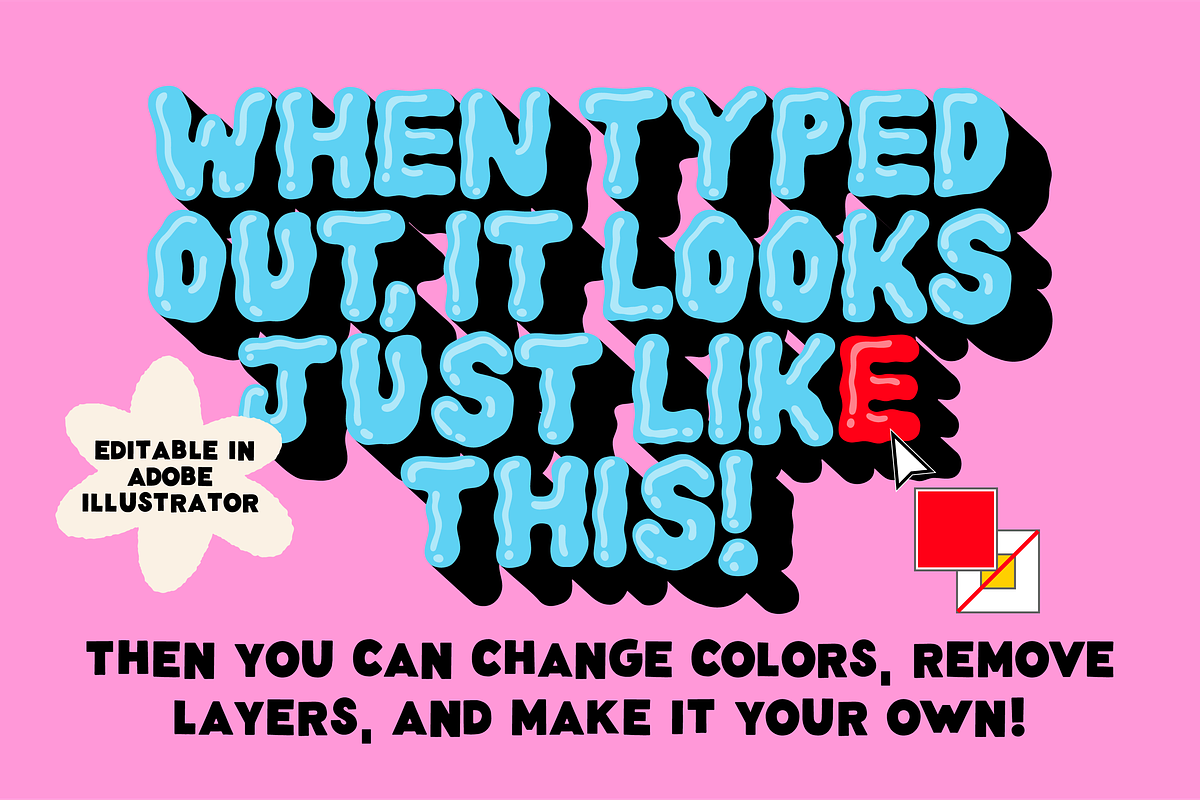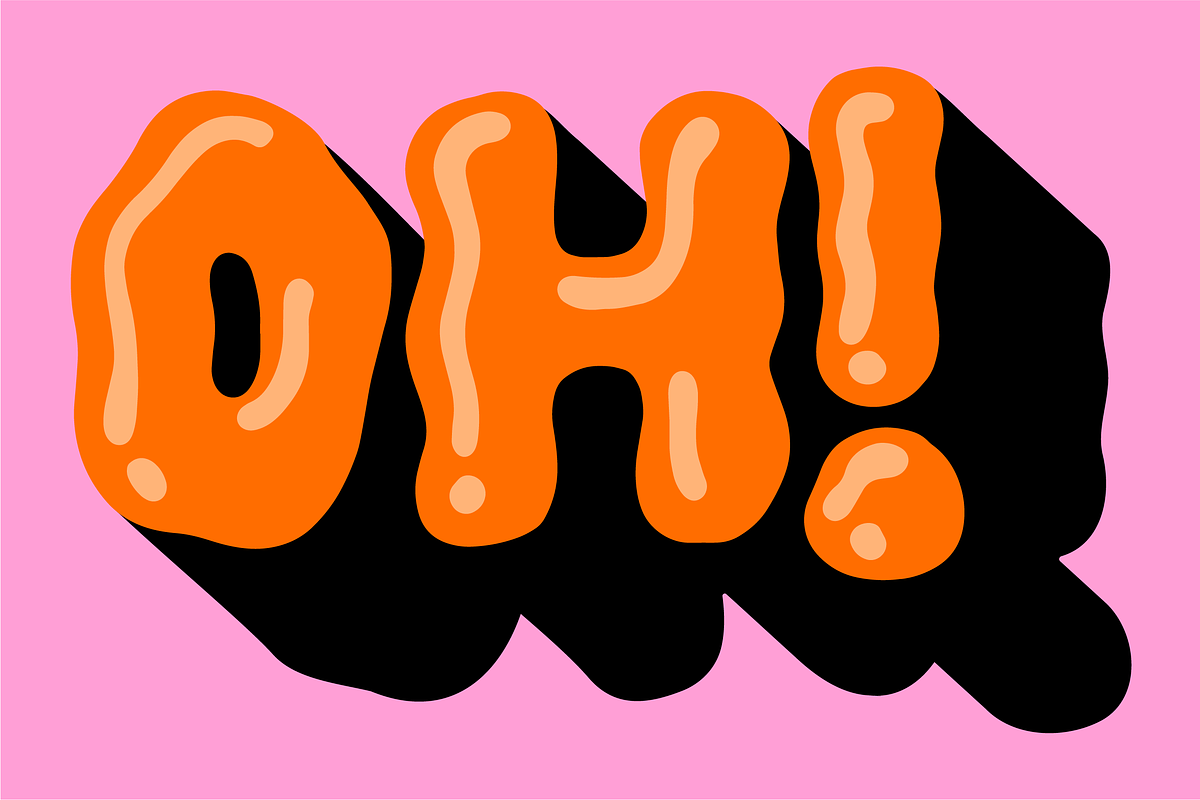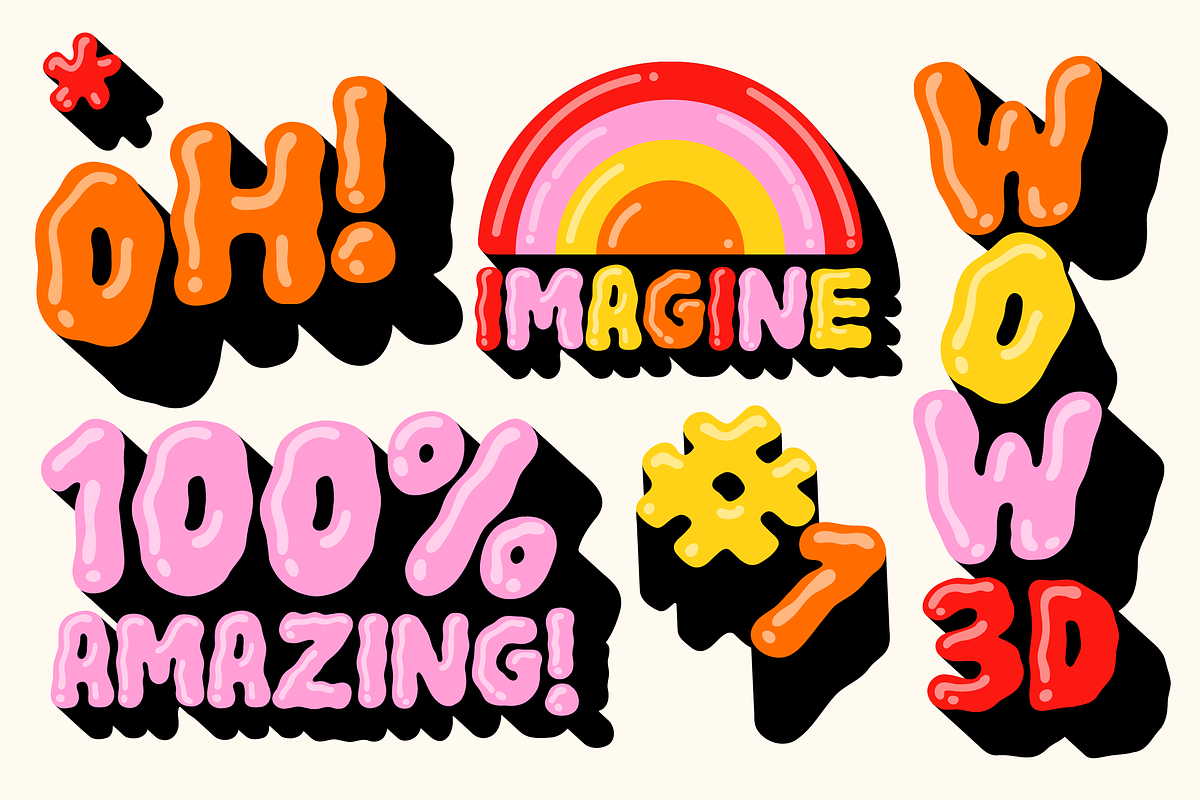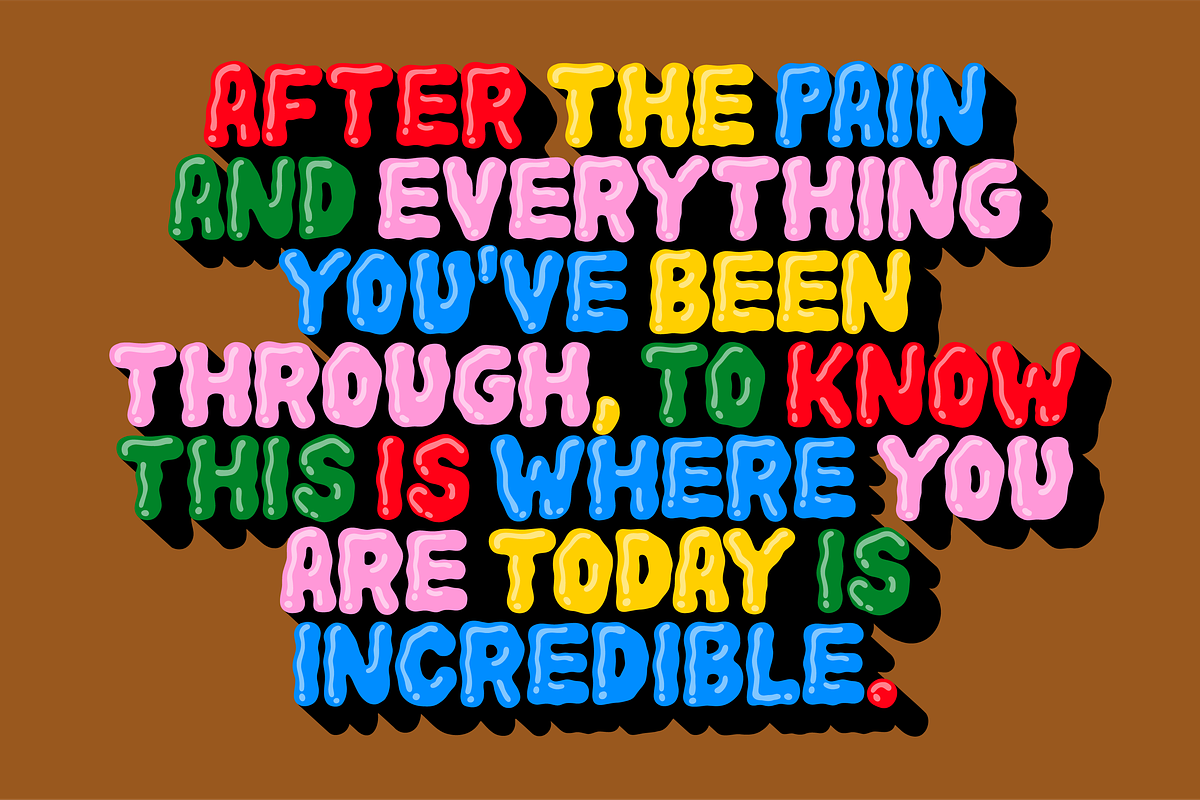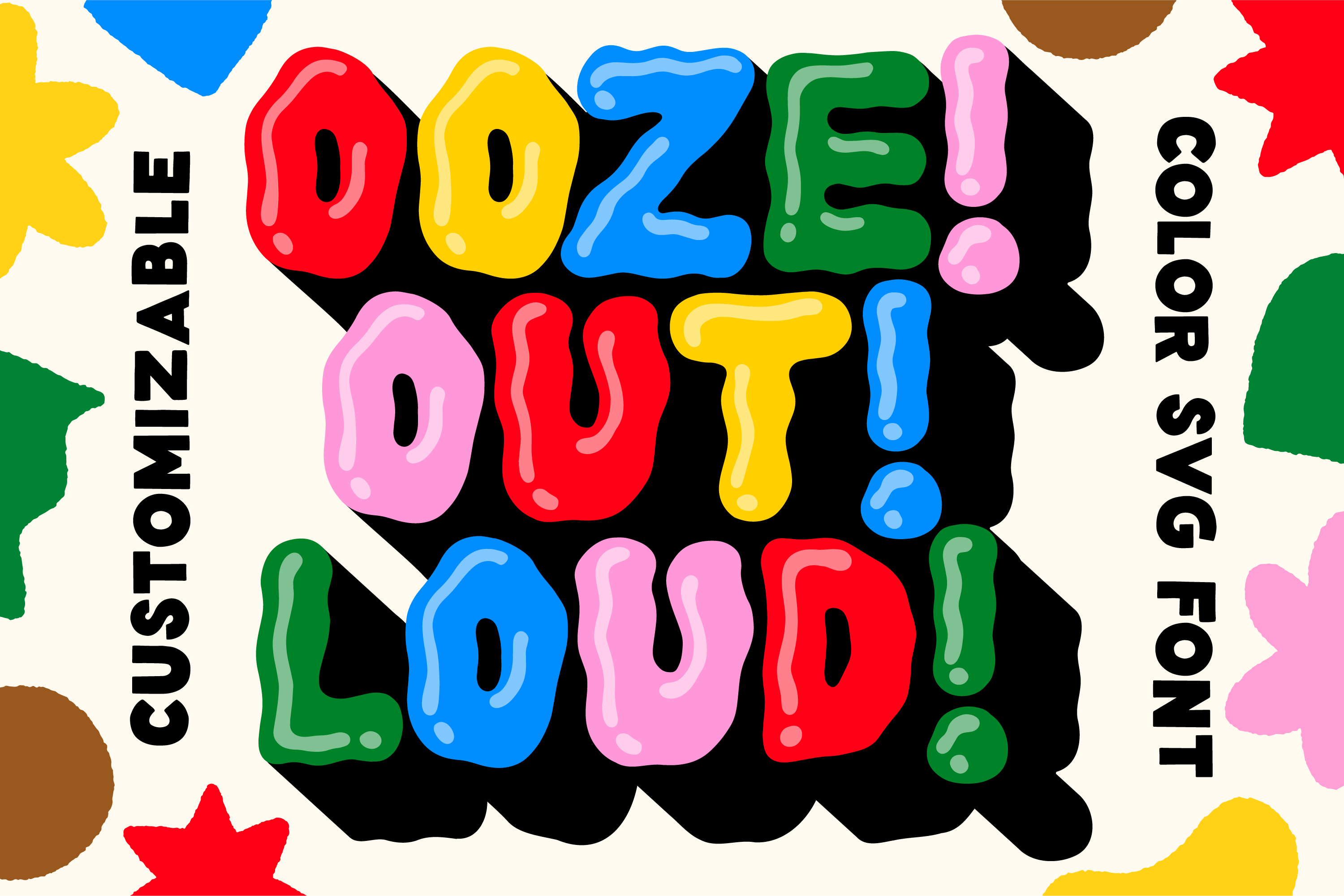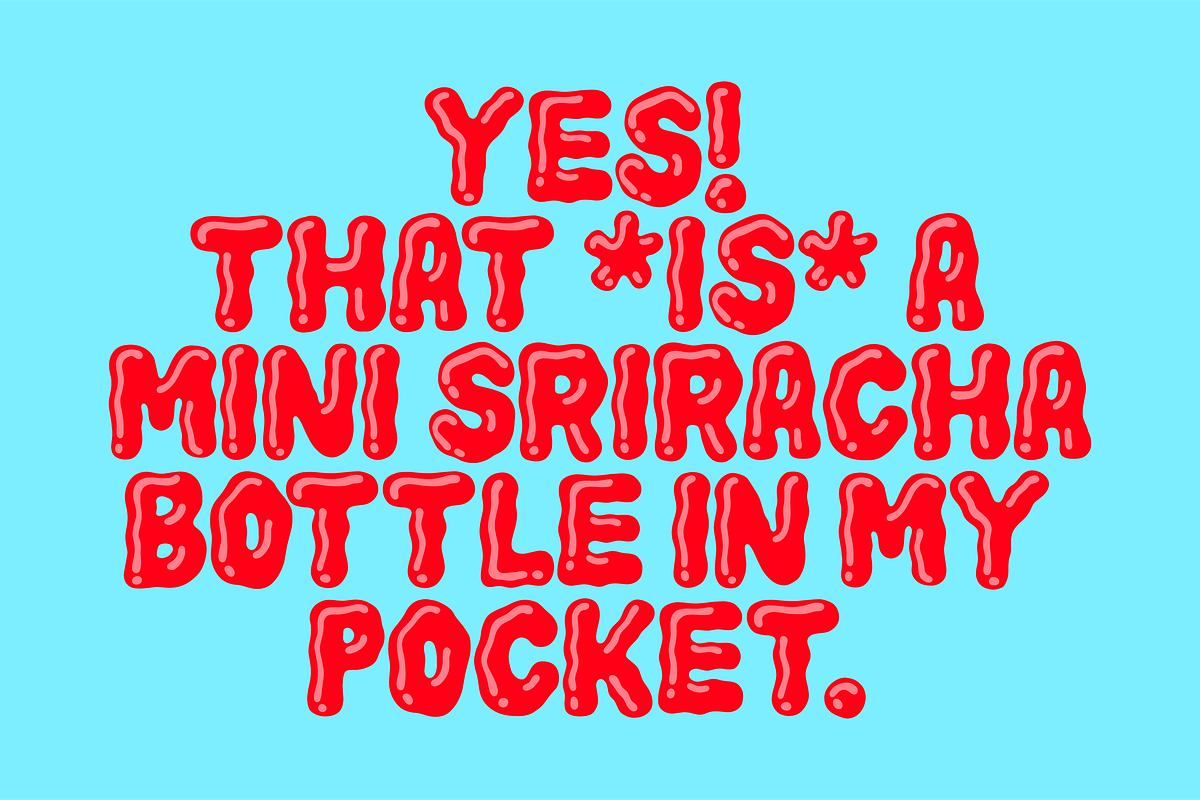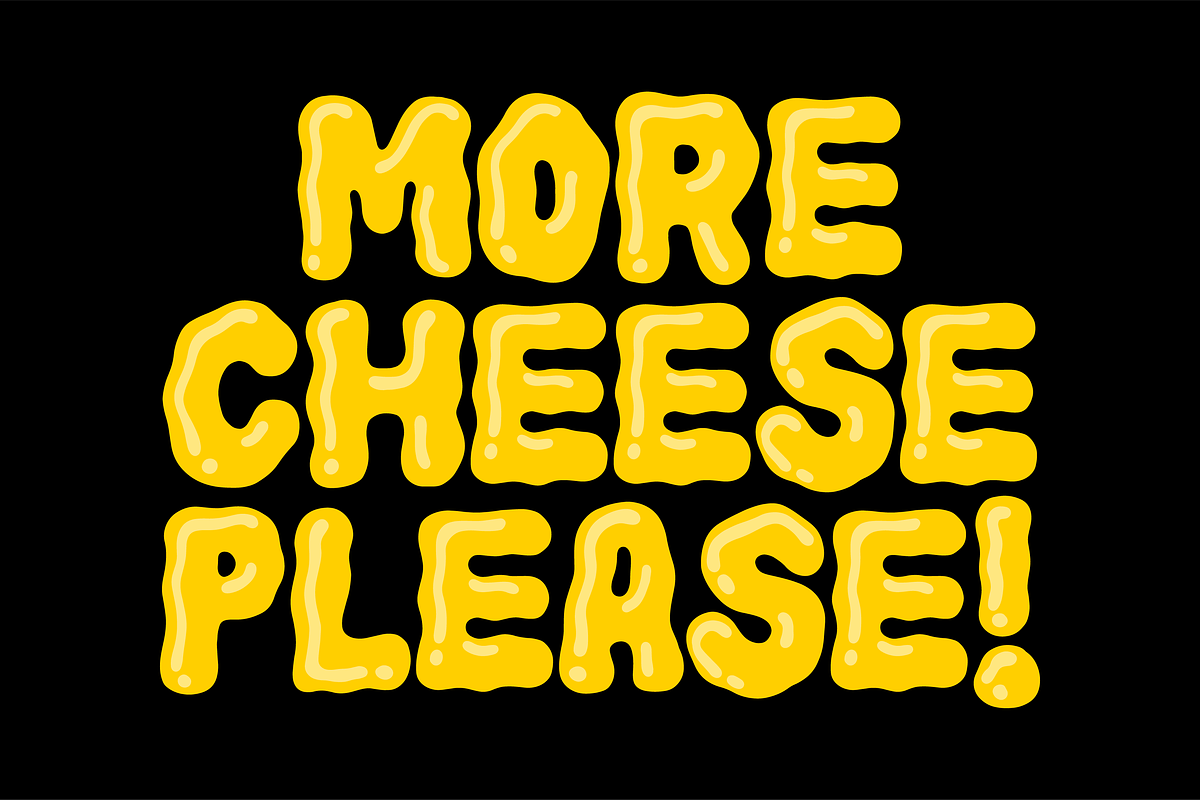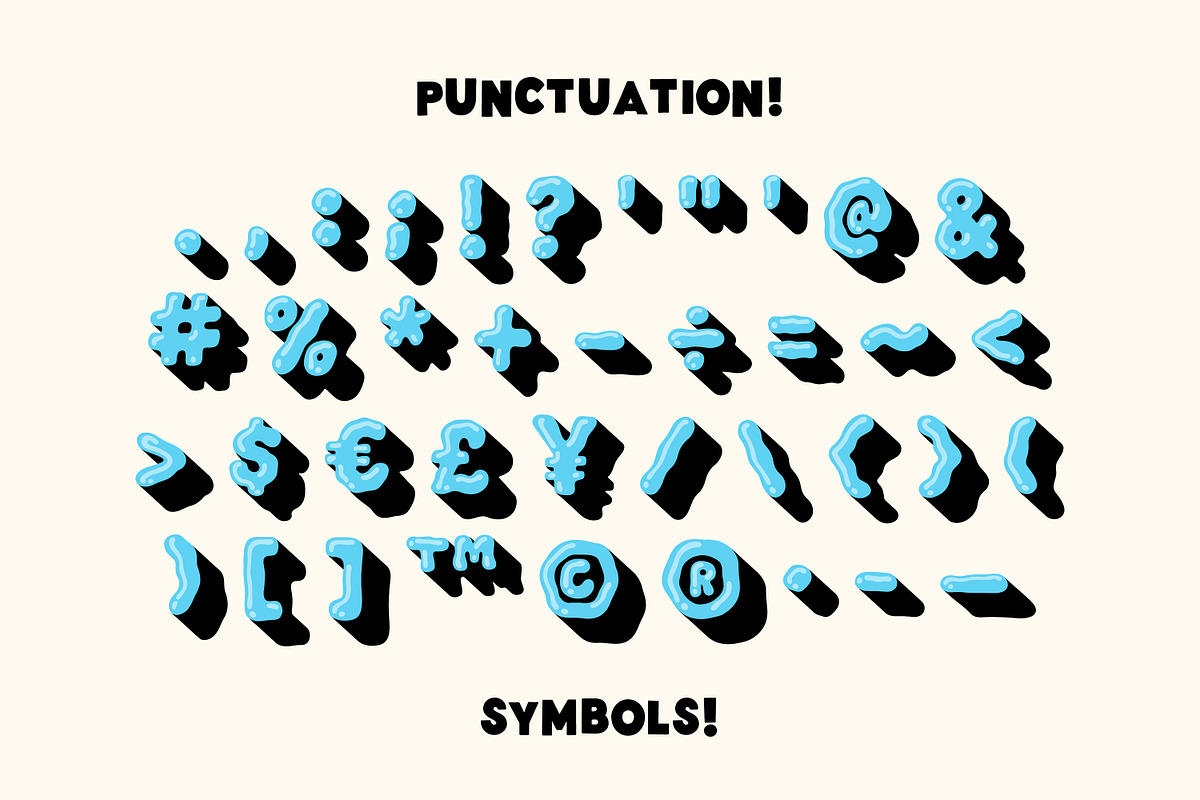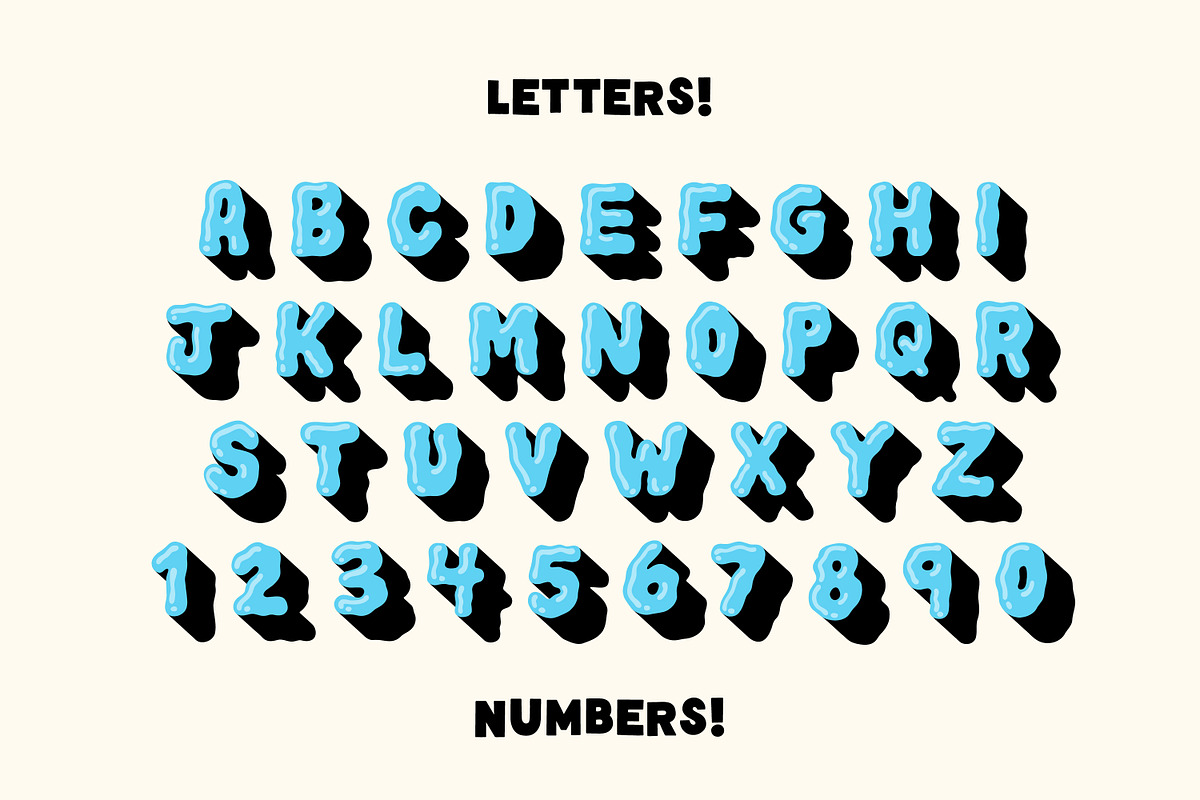
Ooze Out Loud! SVG Color Font
Ooze Out Loud is a super customizable color SVG font with a ton of goopy character! Designed to make it look like you made some custom, shiny hand lettered type with loads of personality. It comes standard in blue letters (as seen in slides 7-10), but you can open it up in Adobe Illustrator and customize the colors, remove layers, and more (see video on last slide for tutorial). Perfect for marketing and brand design, inspirational phrases, and anything you want to spice up with some cheery fun!
- Letters!
- Numbers!
- Symbols!
- Punctuation!
About SVG Color Fonts
Ooze Out Loud is a regular ol' OTF font with benefits allowing it to store special color data and more detail than a regular typeface. This means it comes standard in a blue color (as seen in slides 7-10) no matter where you use it. Don't love the blue? You can open Adobe Illustrator and edit the colors, remove laters, and customize it the way you like! Color SVG fonts aren't available to use in all applications (currently not compatible with Adobe XD, Premiere Pro, and After Effects). Color SVG fonts can also be used on the web but aren't compatible with every browser (like Chrome, sad!). To learn more about color fonts and their current compatibility, check out https://colorfonts.wtf
Ooze Out Loud comes standard in a blue color with a shiny highlight and a black drop shadow. If you'd like to make it another color, open up Adobe Illustrator and expand the type (Object ➡ Expand or Right Click ➡ Create Outlines). From there, you can select each letter and change the color or even remove the shiny highlights or drop shadow. Check out the tutorial on the last slide of the product carousel to see it in action! Looking to edit the type in another app? You should be able to as long as that software allows you to expand the type and click in to edit each layer the way Adobe Illustrator does.